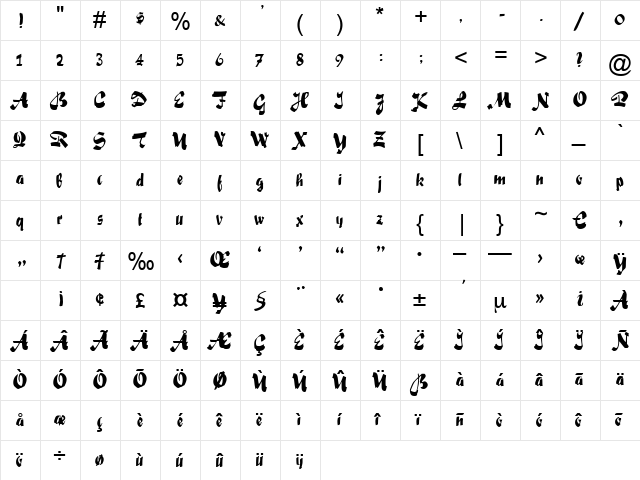
Rhapsodie Regular
Design Context for Rhapsodie Typeface
Rhapsodie is a composed and adaptable typeface that performs quietly and consistently across a wide range of design contexts.